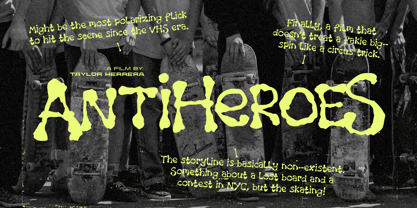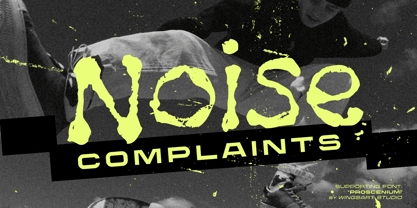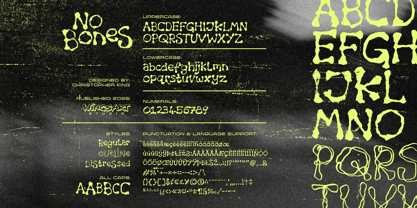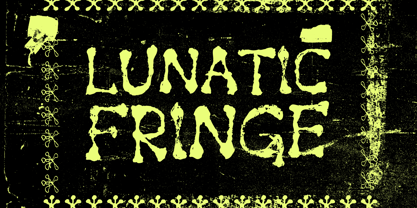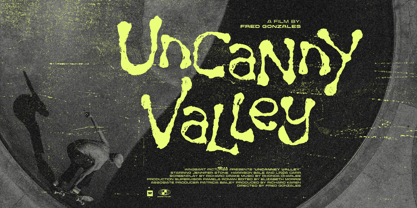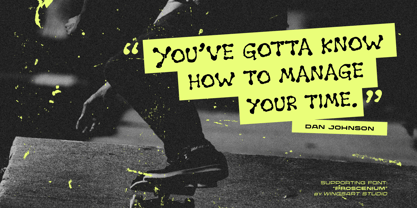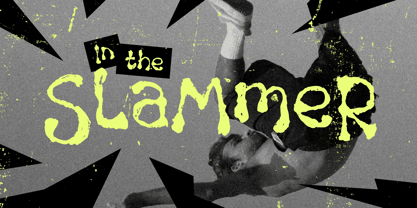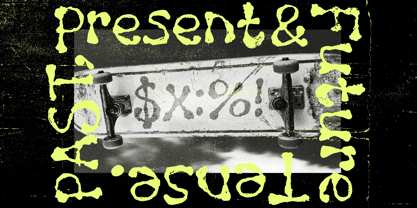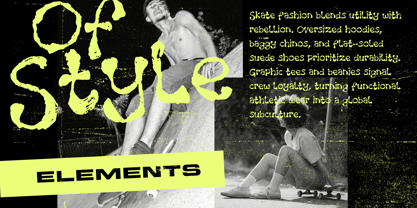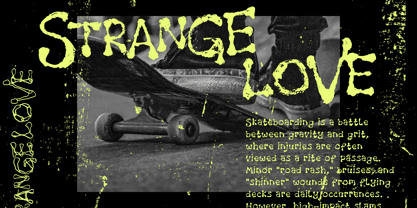
No Bones
No Bones - A Textured Grunge Font by Wingsart Studio
Made from the unpredictable shapes of ink bleeding into paper, No Bones is a display font rich in texture with an analogue and hand-made feel. Its design was inspired by skate branding and magazine editorials, but could suit anything from children’s books to paranormal podcasts. It’s friendly whilst maintaining the rough edges of the urban playground.
The No Bones font family comes with uppercase and lowercase characters, along with an all-caps alternative, all including numerals, symbols, punctuation, and language support.
Try it on headers and titles that need a certain punk attitude, like fanzines or gig flyers, and embrace the imperfect, inky textures that feel like you’ve got your hands dirty. Enjoy!
Christopher King (aka Wingsart Studio) is a Graphic Designer specialising in hand-drawn lettering for film and television titles. From blockbuster films to indie press, Wingsart Studio fonts have appeared on screens big and small around the globe. His work has been used by companies including Disney, Marvel, Apple, Netflix and Paramount Studios.The Wingsart Studio philosophy is to embrace the imperfections inherent with real pens, pencils, paper and brush. In counter-balance to an AI driven age, these fonts remain refreshingly analogue and proud of their human touch. Before a single letter turns into a digital product, countless hours are spent researching and sketching out ideas in pursuit of those perfect lines and shapes.